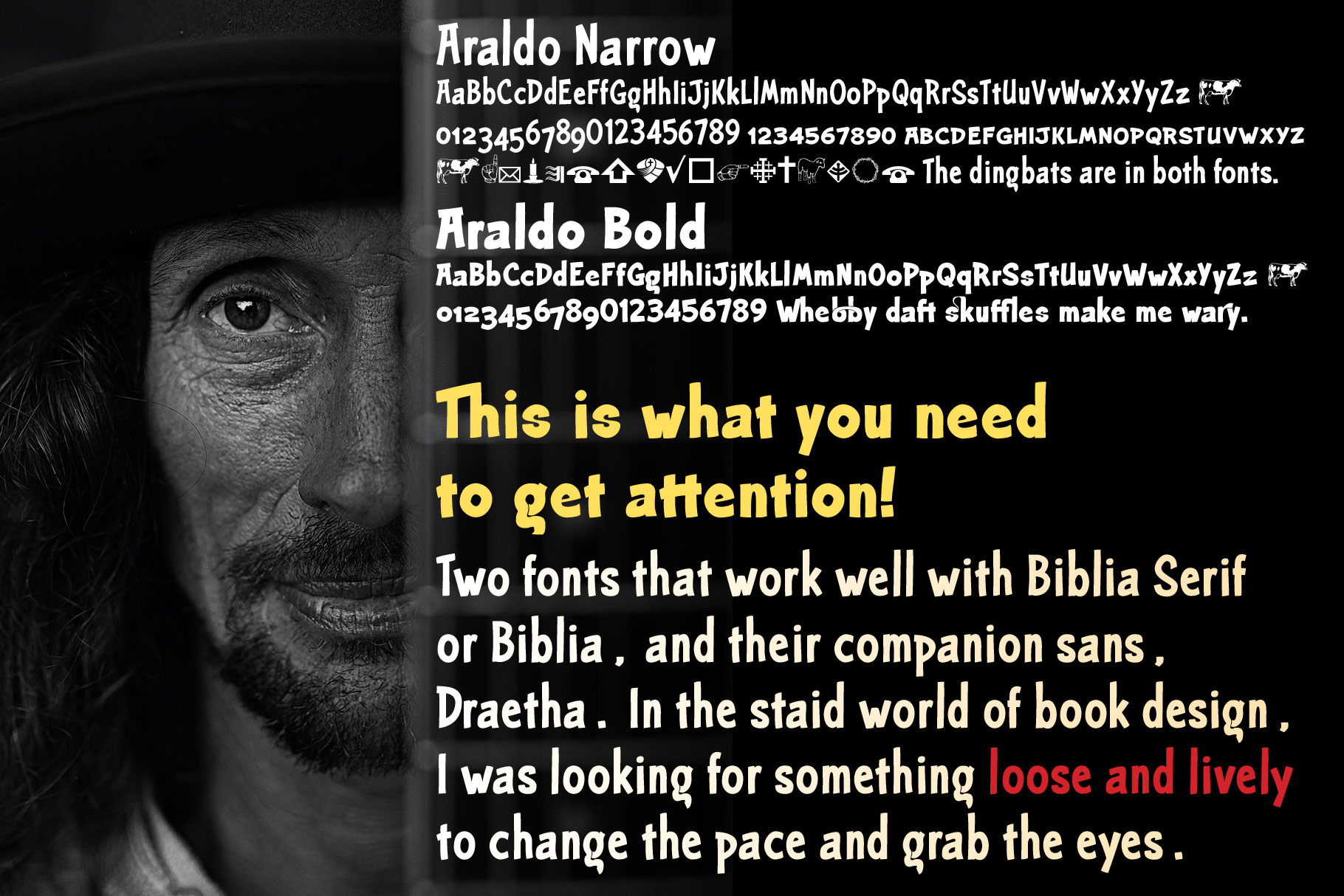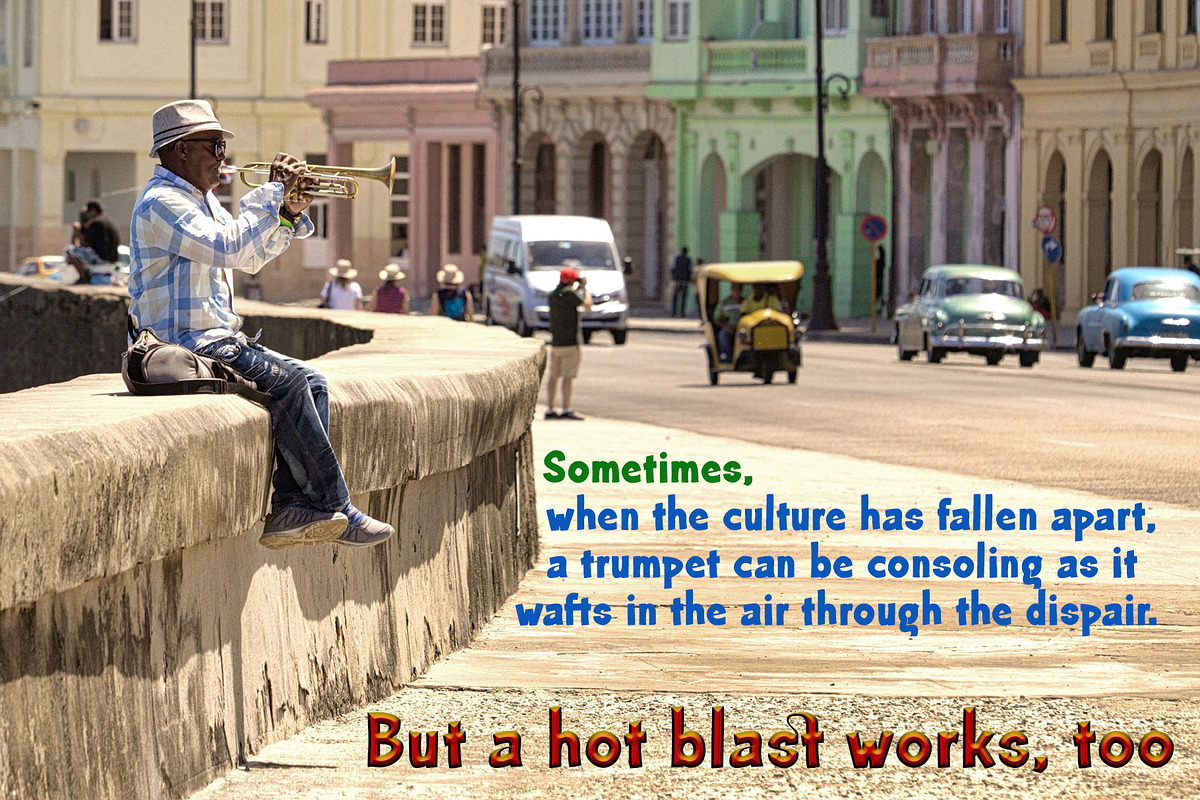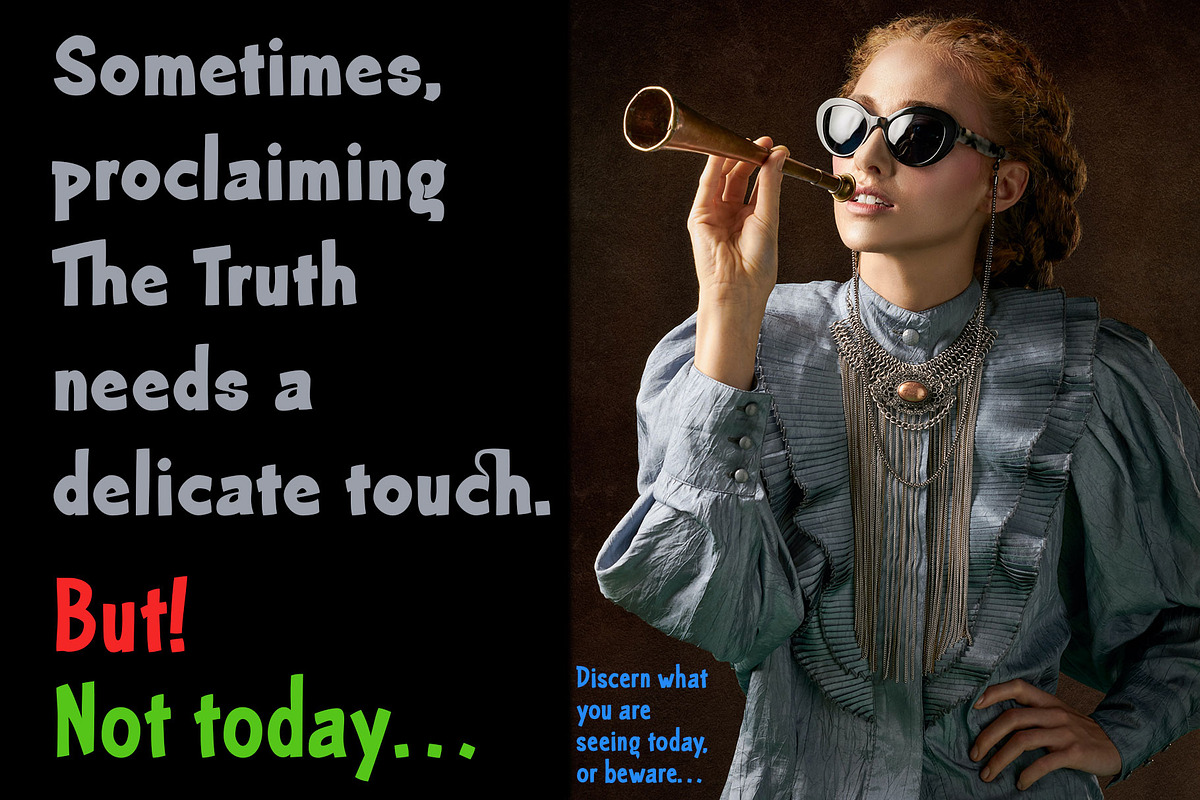
Araldo-two loose free headline fonts
Araldo is a headline font with spunk for today. I needed something with a little life for my favorite book production group: Biblia Serif, Dreatha, and now Araldo. This new font family is doing well for me. Biblia Serif and Draetha are both excellent book production font families. In other words, they are not memorable. In fact, if they do their job well, you don’t even notice them. But as I mention in the Araldo Spec Sheet, there come times when you must break out of those restrictions and bring a bit of life into the layout. Araldo was designed to meet that need. I’m happy to say, it seems to be working well. It’s a little in your face, but not too heavy about it. It seems to give a nice respite in the middle of the seriousness of the day. I’m quite pleased so far. I want to do some more fonts like this, but it’s a good start. Araldo is Italian for a herald, one who proclaims. For me that goes well with Biblia Serif, and Dreatha [which is Welsh for preach]. There may be more in the future, but for now these two styles are all that I’ve produced. Araldo is built with the same metrics as the rest of the group, but it is much looser and makes dramatic, or at least intriguing, heads. The bold version was a lot of fun. The stem thickness was too large to fit three times within the x-height. So, I had to modify the a, e, s, and z. It also made small caps virtually impossible. For a touch of nostalgia, since it is actually a major modification of my first font—NuevoLitho, I also added all the old ligatures I used to use when I first started designing fonts in 1994. With the ligatures, you can make many special word images. There are over a dozen to work with.